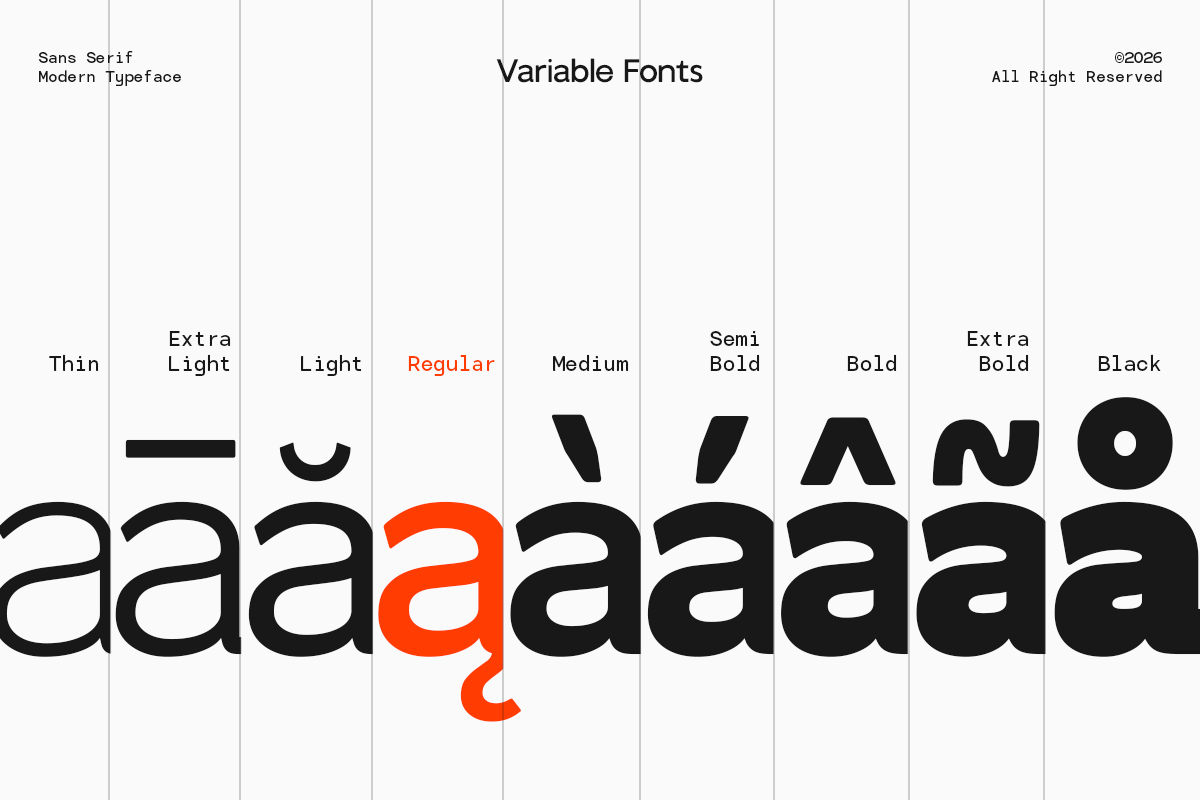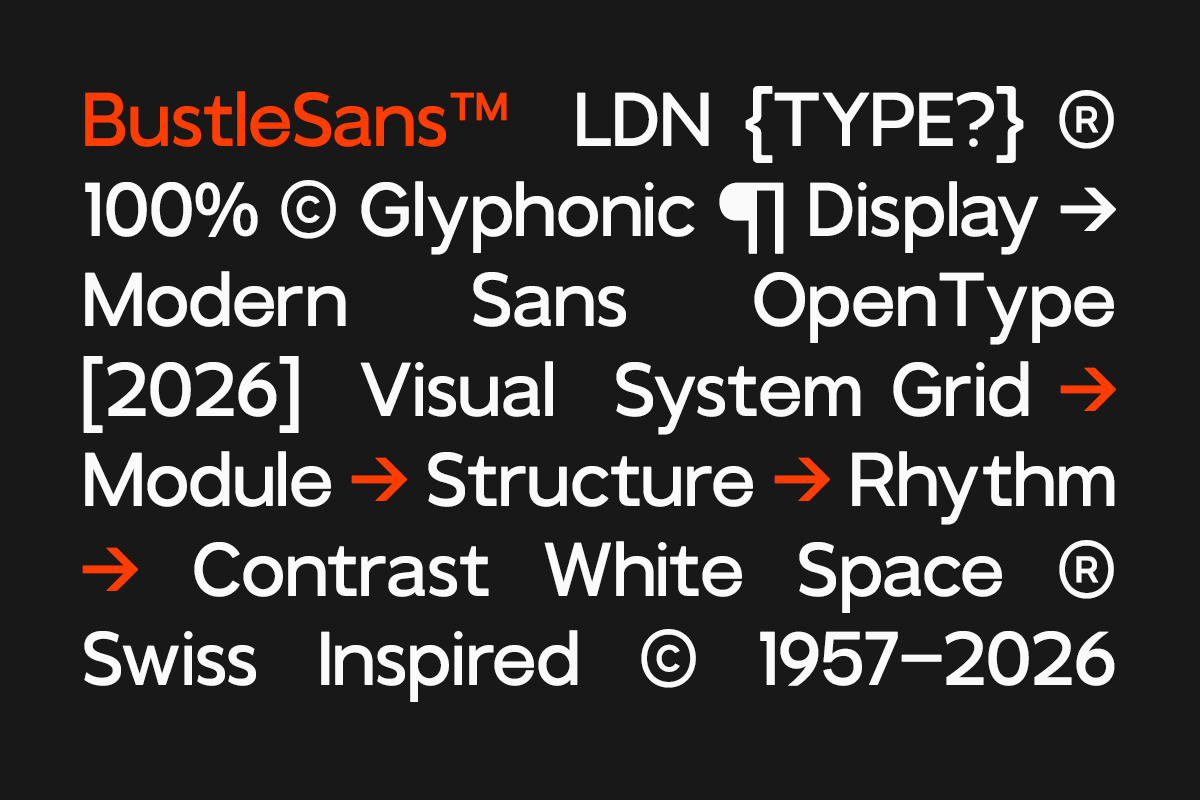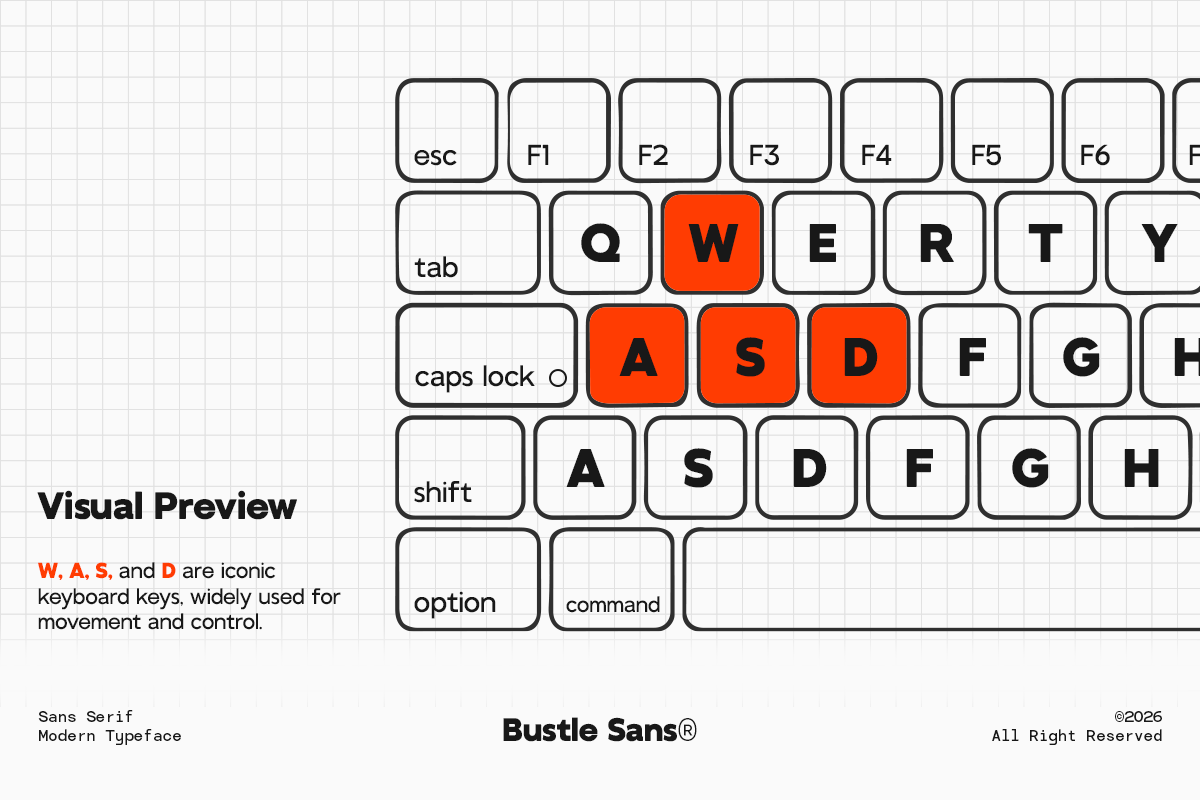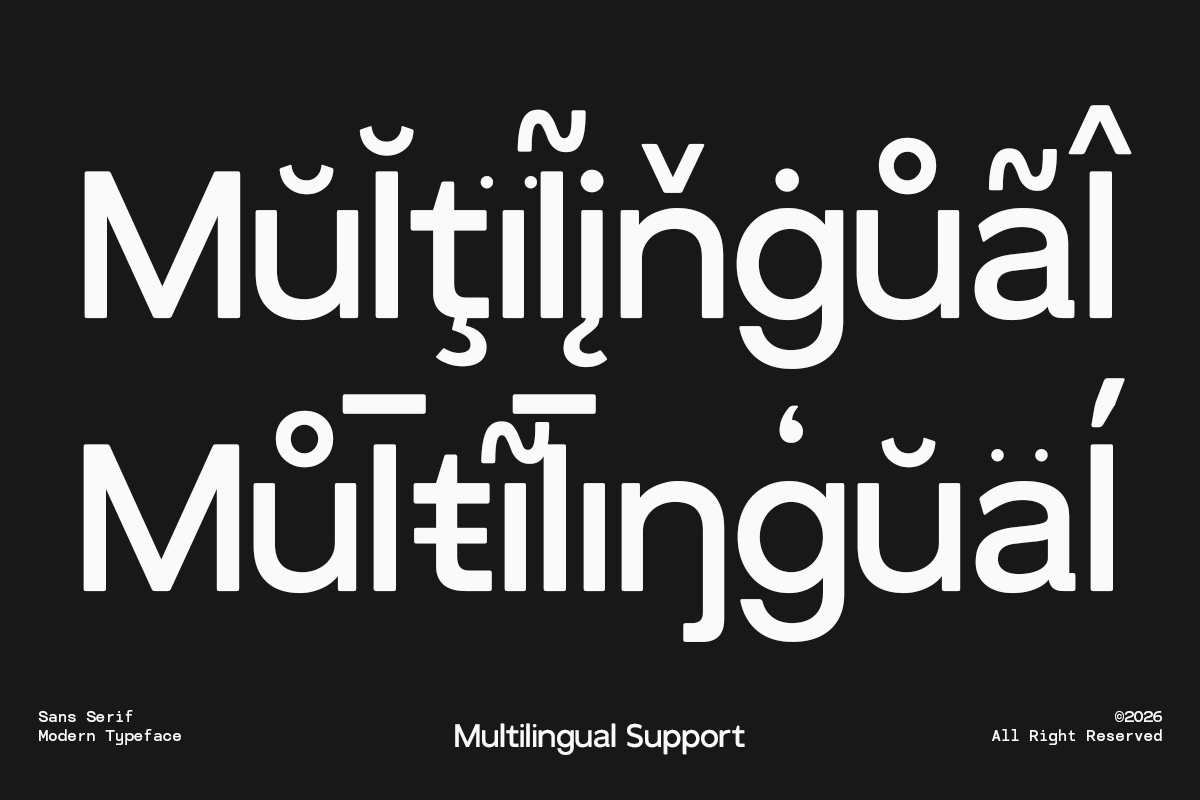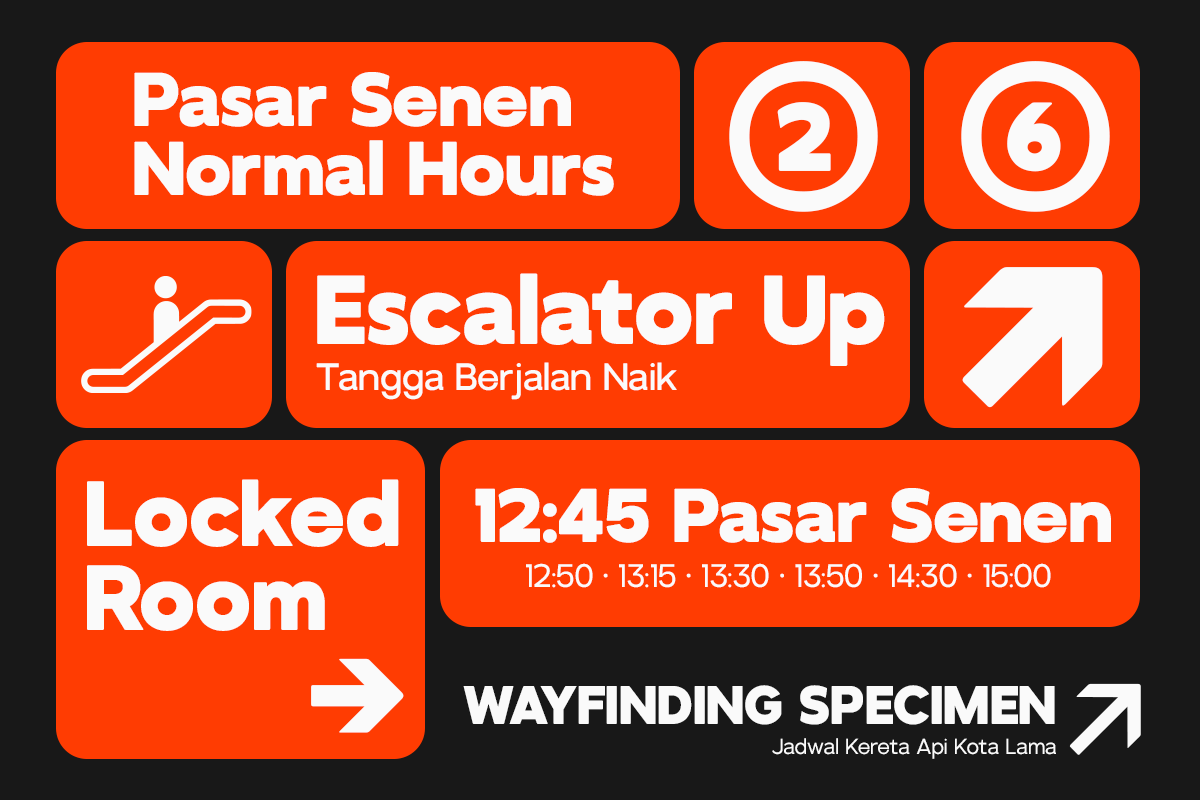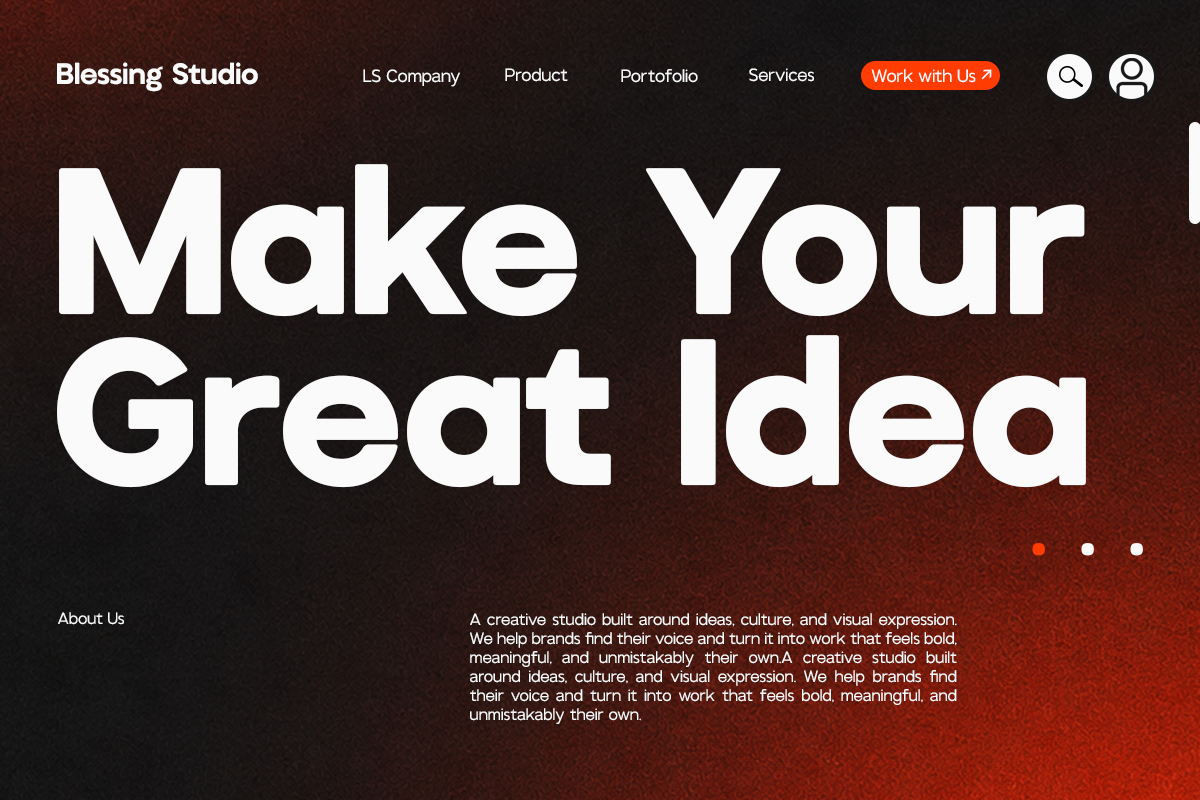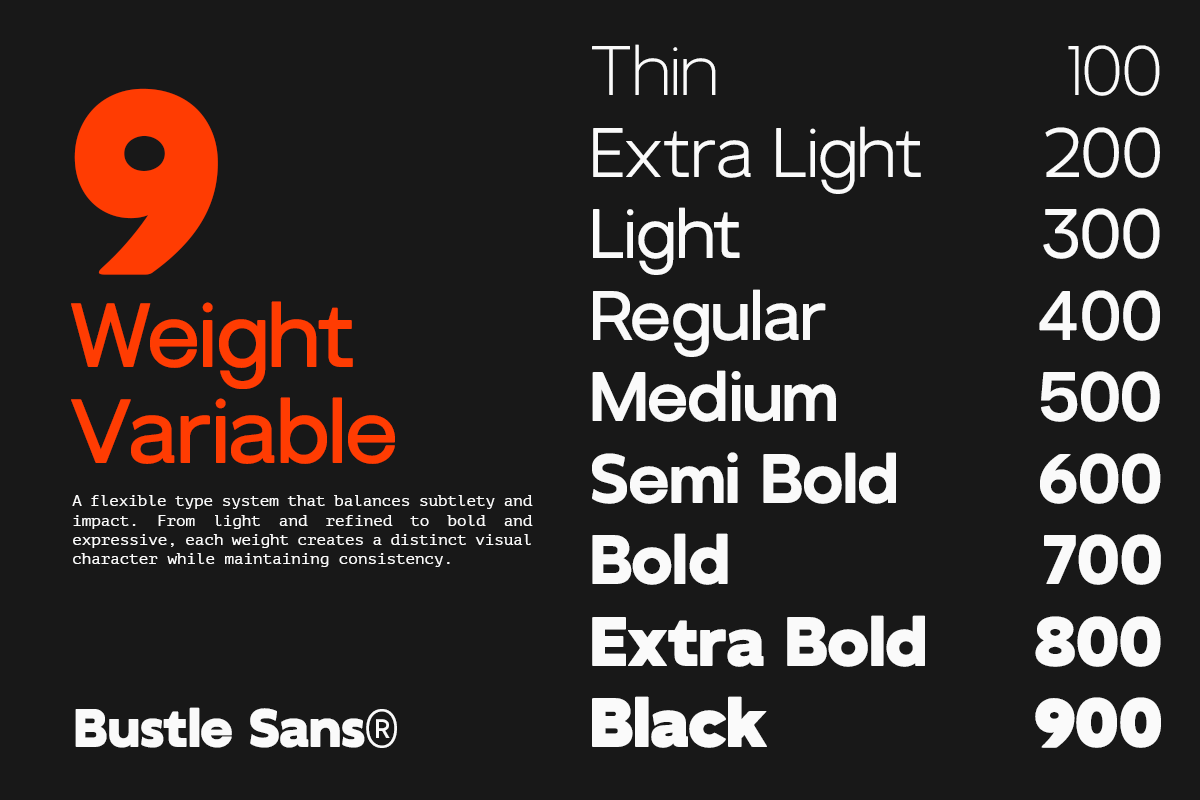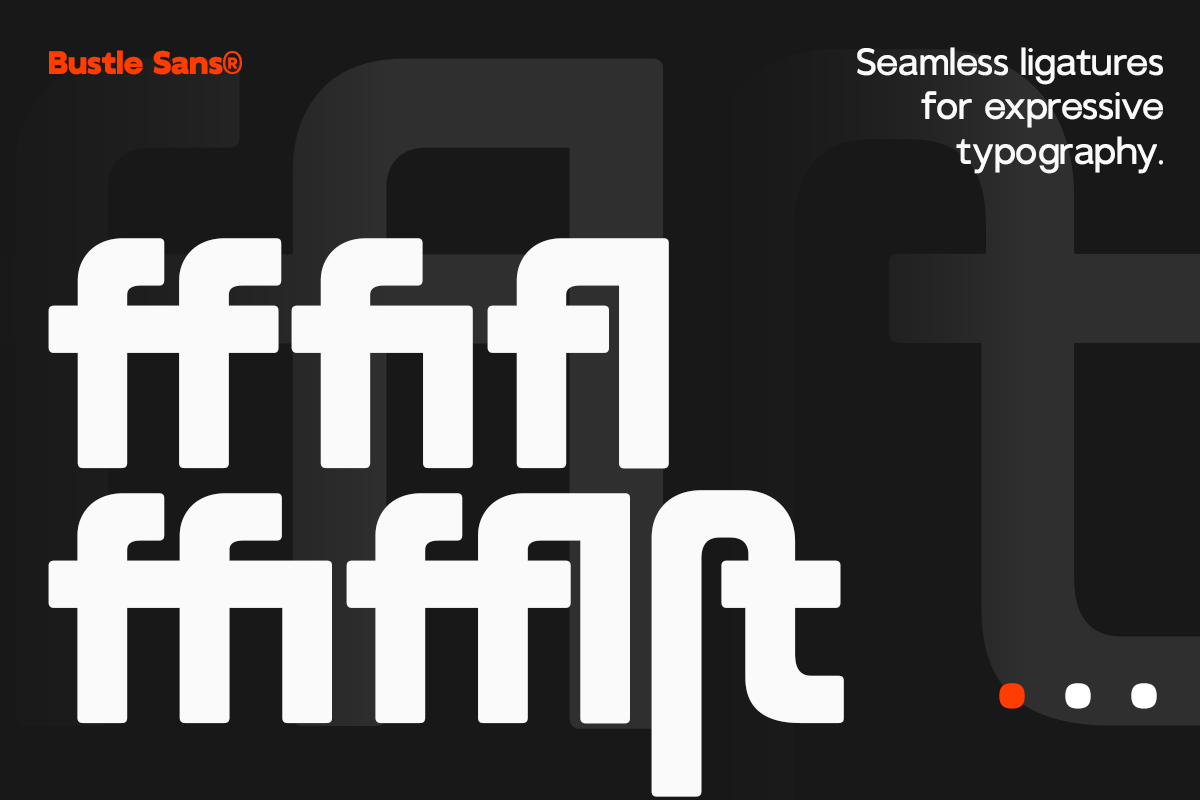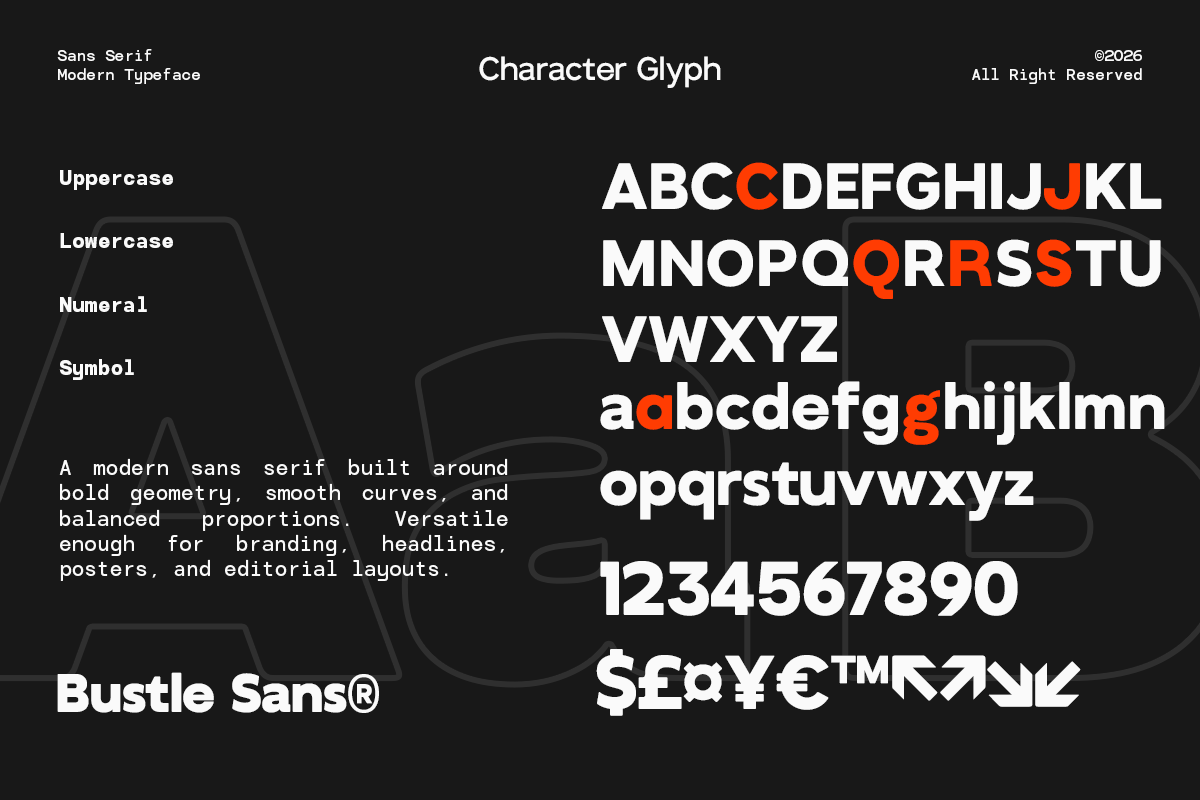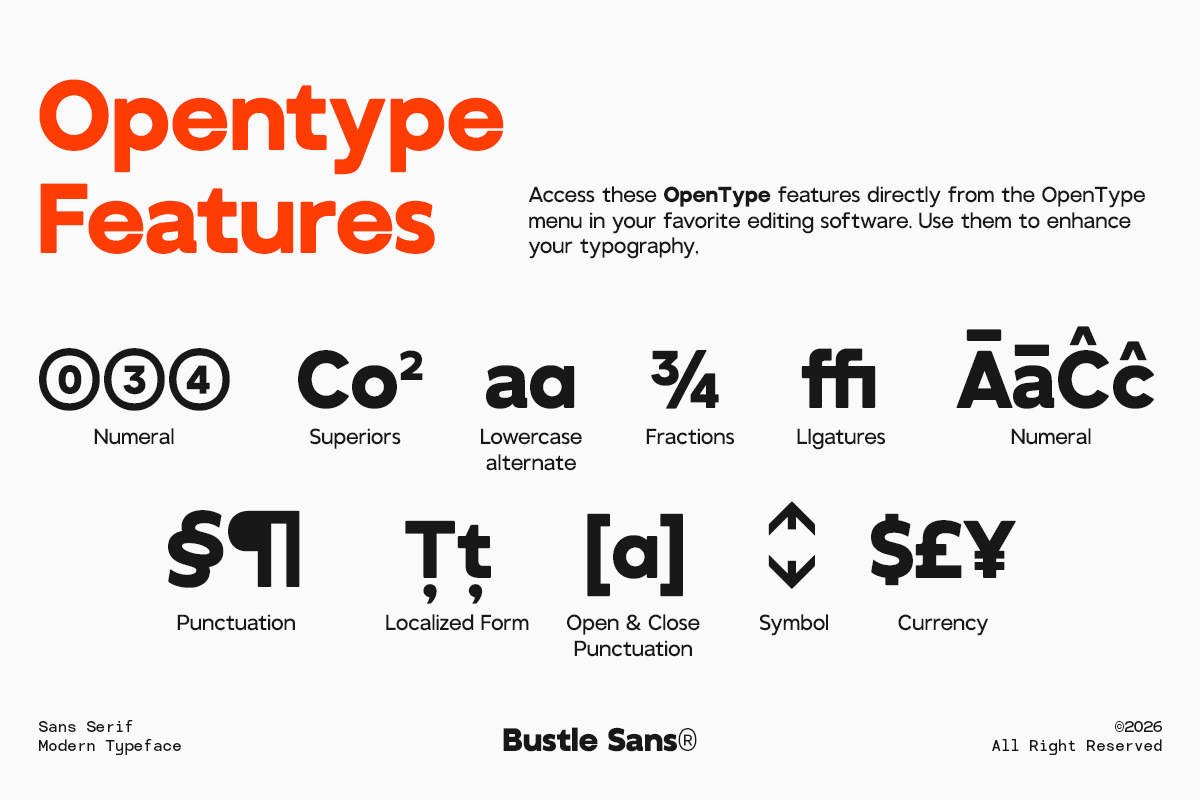
GC Bustle Sans – Variable Sans
GC Bustle Sans – Modern Variable Sans Family is a contemporary sans serif type system designed to deliver clean structure, confident versatility, and effortless readability across modern visual design. Built with balanced proportions, geometric precision, and refined curves, Bustle Sans offers a fresh typographic voice that feels professional, adaptable, and distinctly modern.
Created as a Variable Sans Family, GC Bustle Sans gives designers complete flexibility through a smooth weight axis, making it easy to build strong visual hierarchy while maintaining a consistent identity. From lightweight editorial typography to bold branding statements, every weight preserves the font's crisp construction and modern personality.
With a modern geometric foundation and carefully crafted spacing, GC Bustle Sans remains highly legible in both large headlines and smaller body text. Whether you're creating scalable digital products or premium print materials, GC Bustle Sans brings flexibility, precision, and timeless contemporary style into every composition.
* Variable Font (Adjustable Weight Axis)
* 7 Weight Styles
* Uppercase & Lowercase
* Numbers & Punctuation
* Modern Geometric Sans Construction
* Clean Editorial & UI-Friendly Design
* Multilingual Support (170+ Languages)
Bring flexibility, clarity, and modern structure into every design with GC Bustle Sans—a versatile variable sans family crafted for branding, editorial design, digital interfaces, and contemporary visual systems.